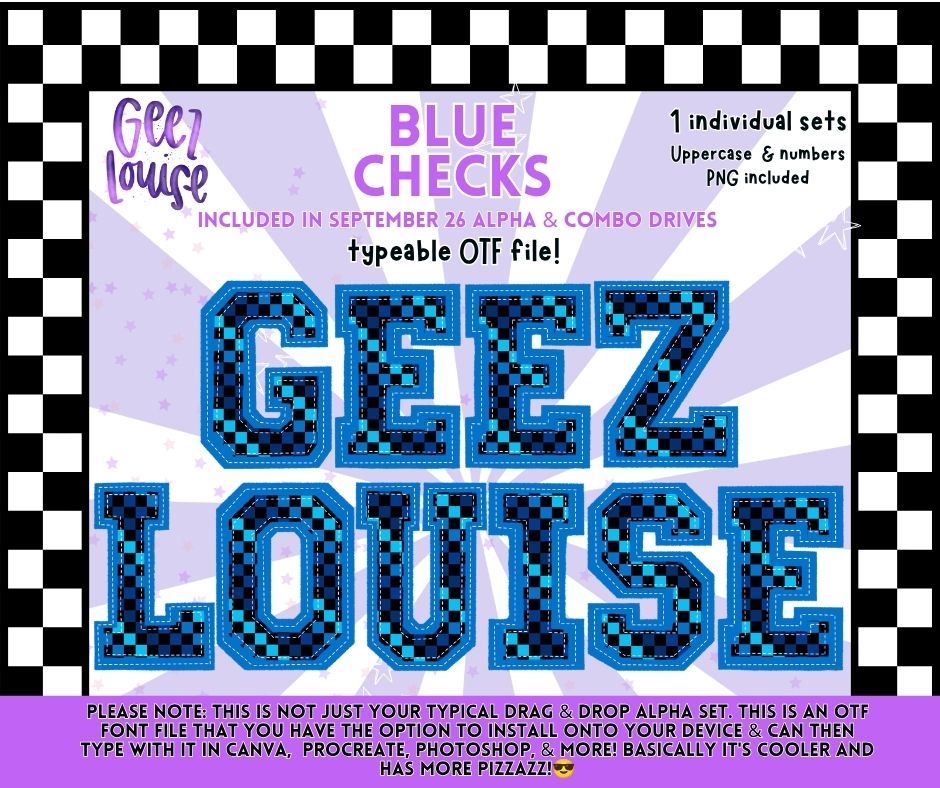
Blue Checks OTF Alpha | Blue & Black Checkered Varsity Font | Uppercase Letters & Numbers
Bold blue, black checks, and that classic varsity look. 💙🖤🏁
Blue Checks is a sporty varsity-style alpha featuring a blue and black checkered fill, layered blue detailing, and stitched-style accents. And this isn’t just your typical drag-and-drop alpha. It includes a typeable OTF font, so you can install it on your device and TYPE your words directly. 🙌
✨ Perfect for sports, school spirit, mascots, team designs, shirts, sublimation projects & more